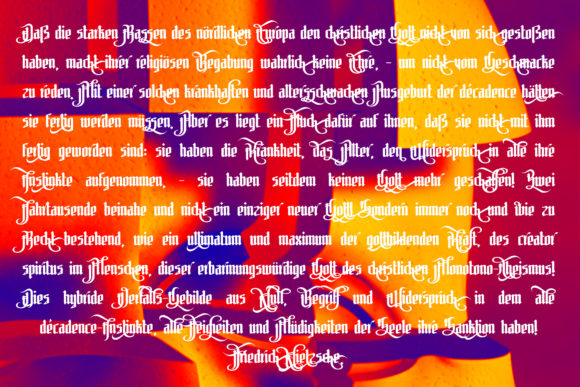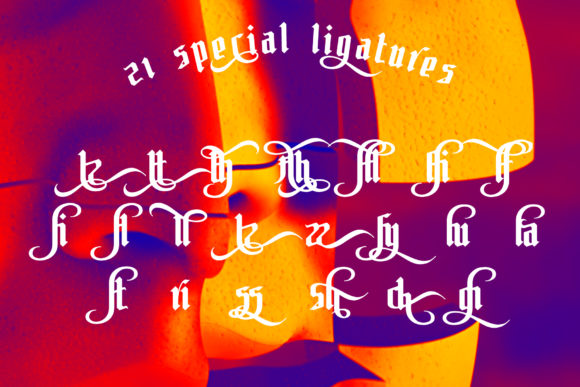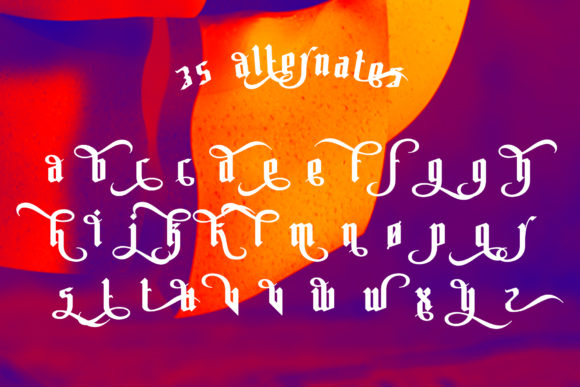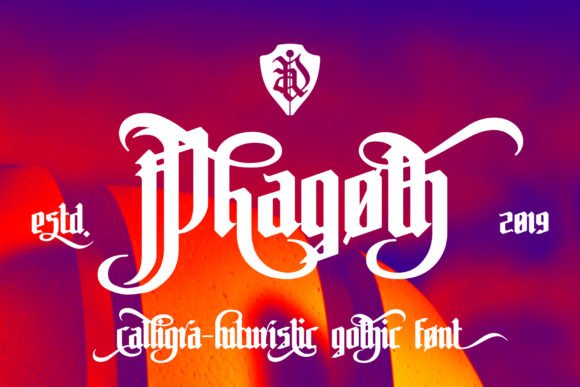
Introduction to Phagoth Font
Phagoth takes classic calligraphy to the future.
This bold blackletter font is an adventurous and luscious typeface, perfect for making any font stand out .